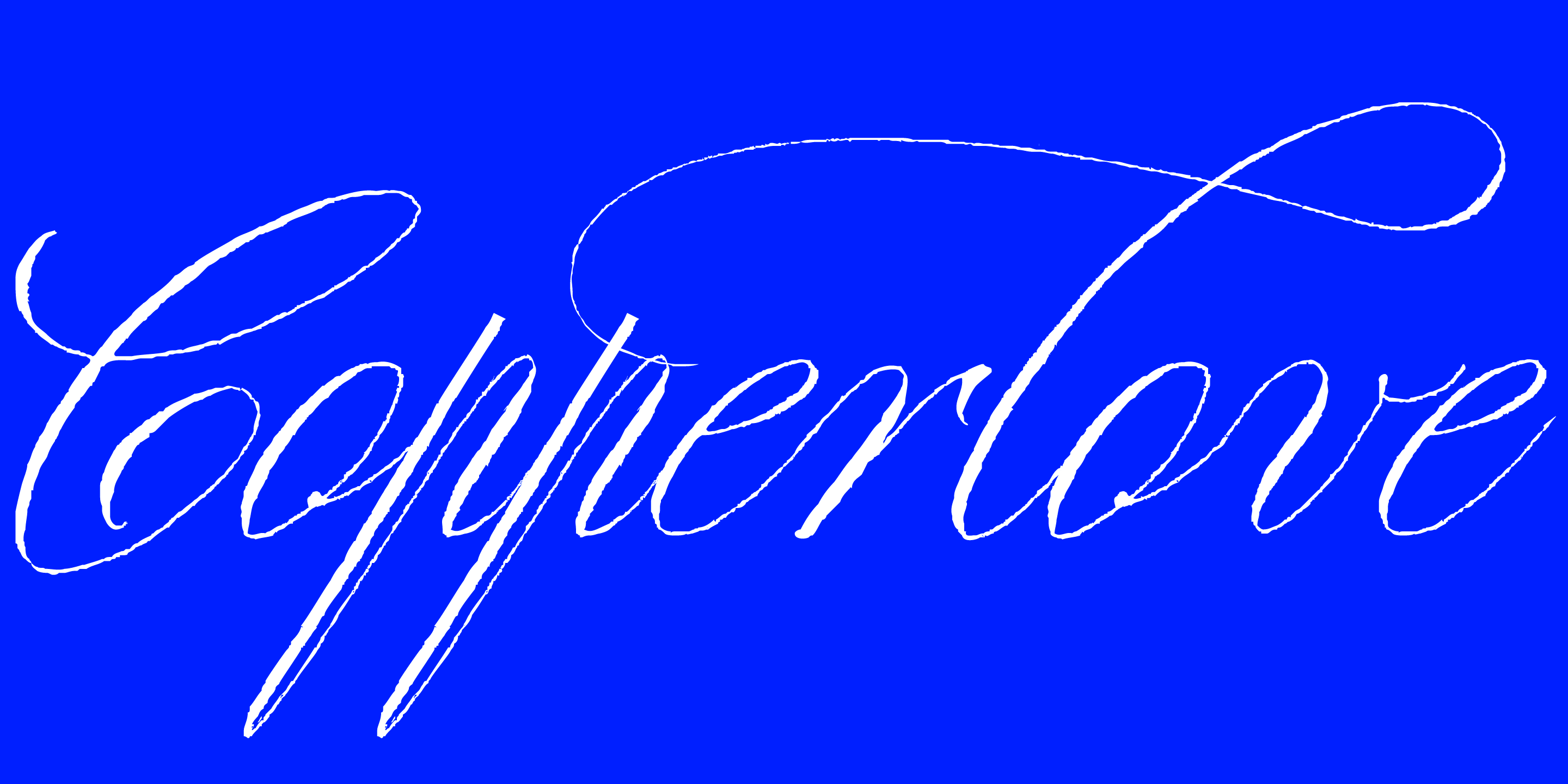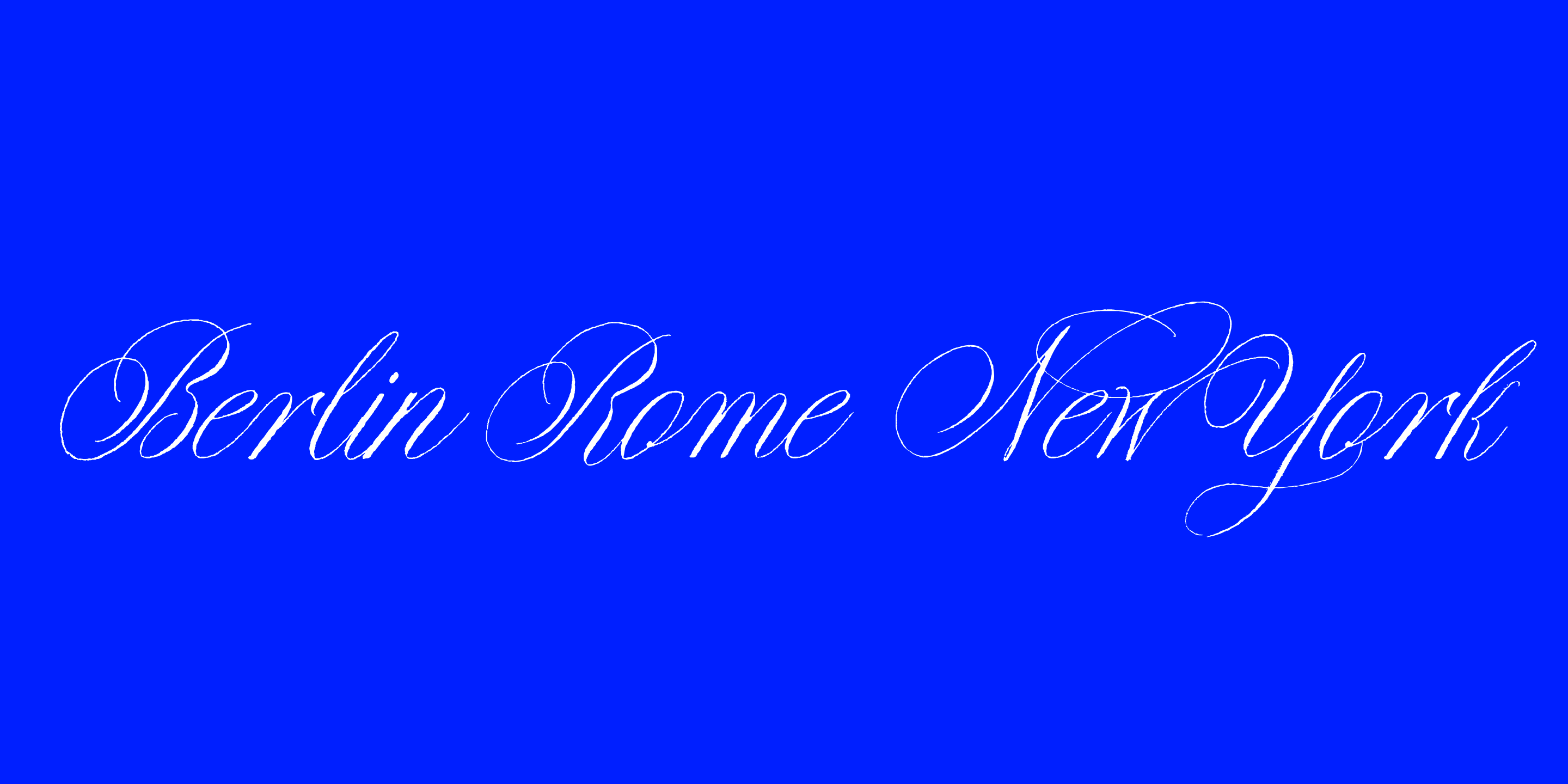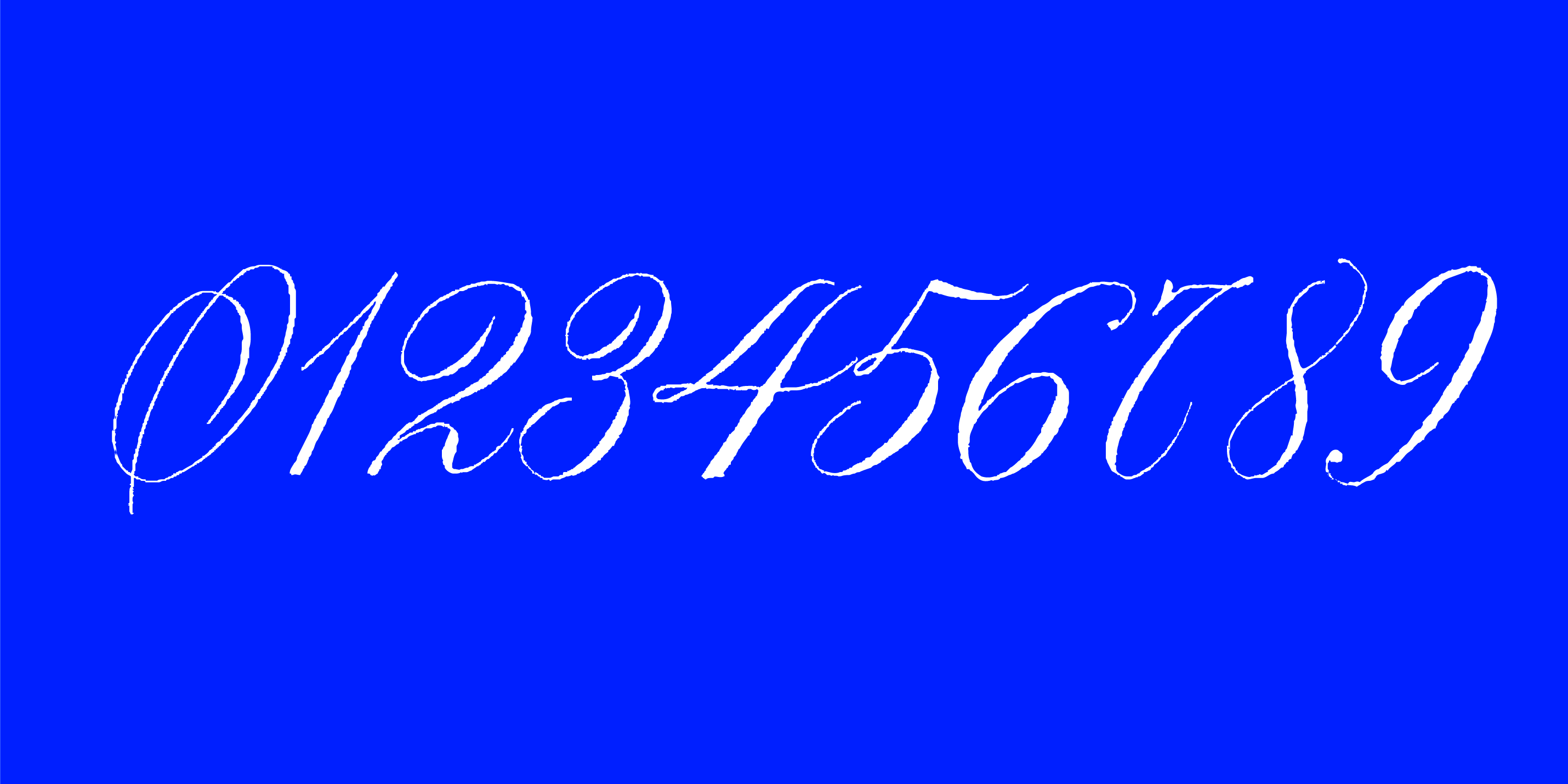
Copperlove
Copperplate handwritten font
Copperlove
Designed by Resistenza Type Foundry
Copperlove was born during a very long and hard wintertime in Berlin. Oblique nib and sepia ink were the tools used to create this sublime english typeface. Check all the opentype features like alternates and beautiful swashes.